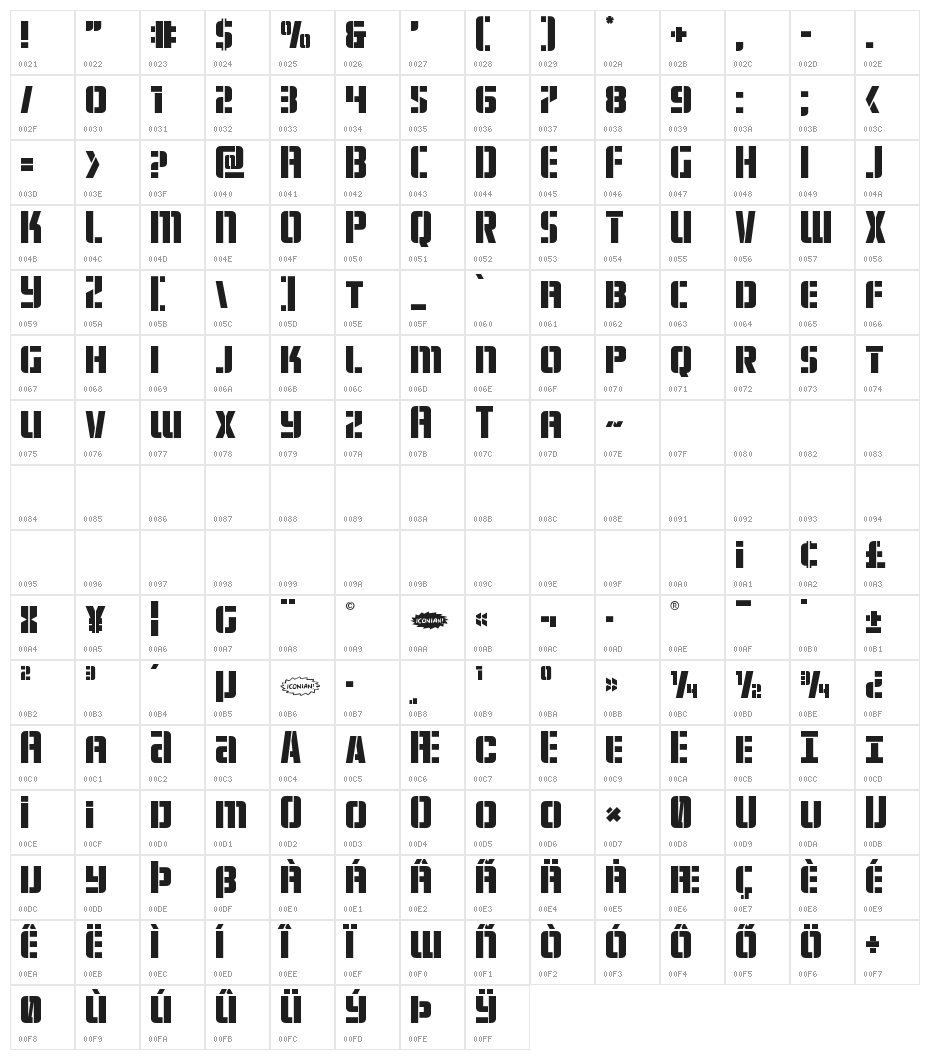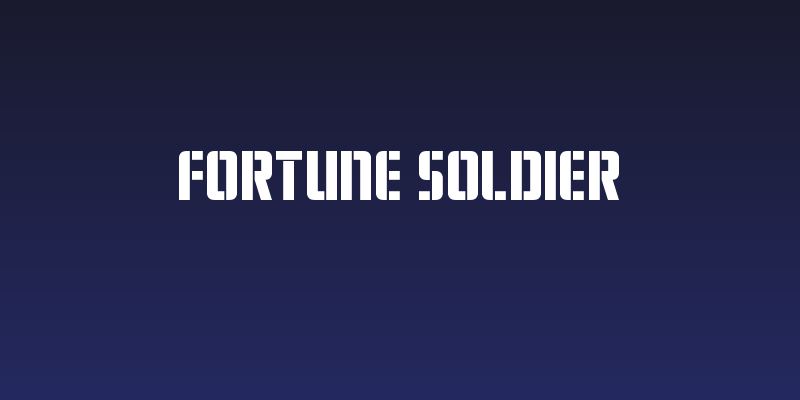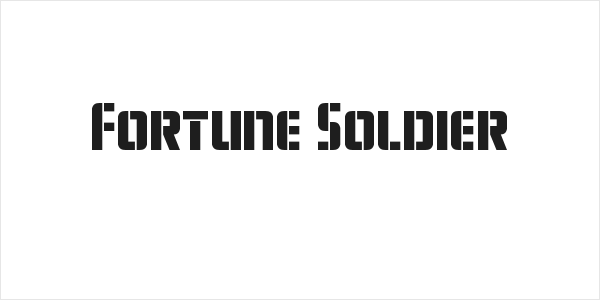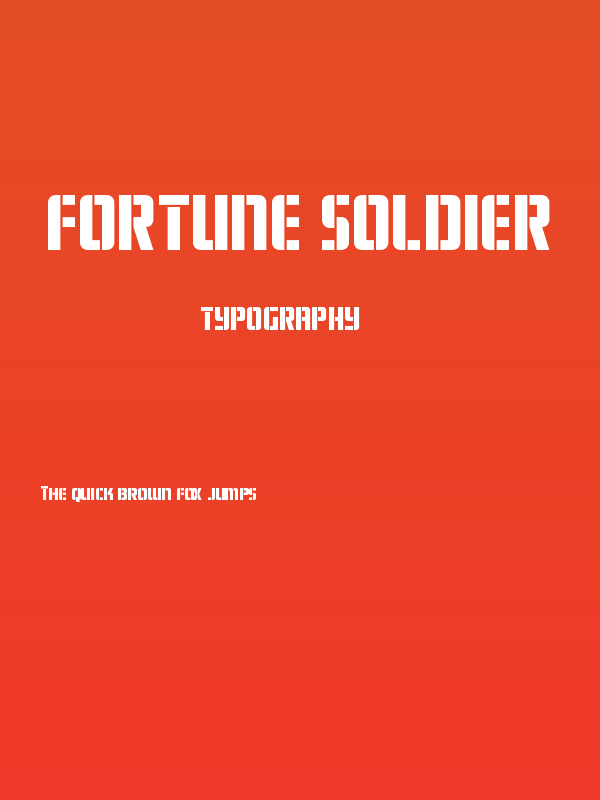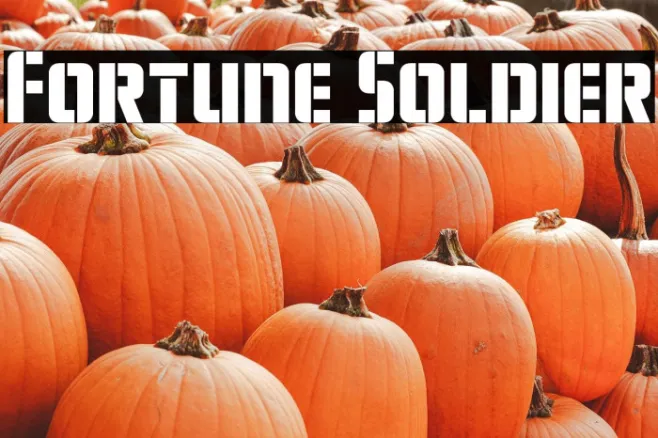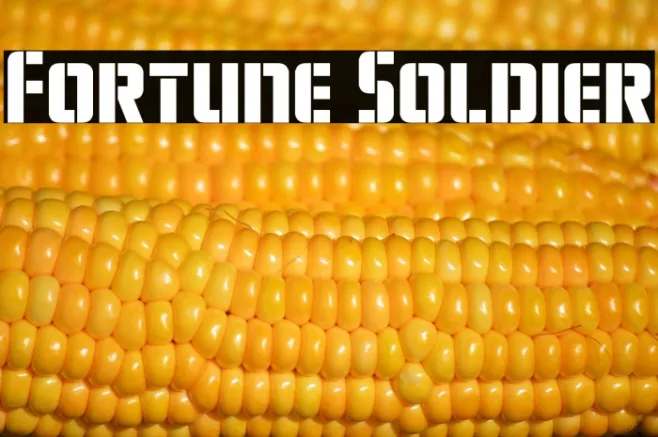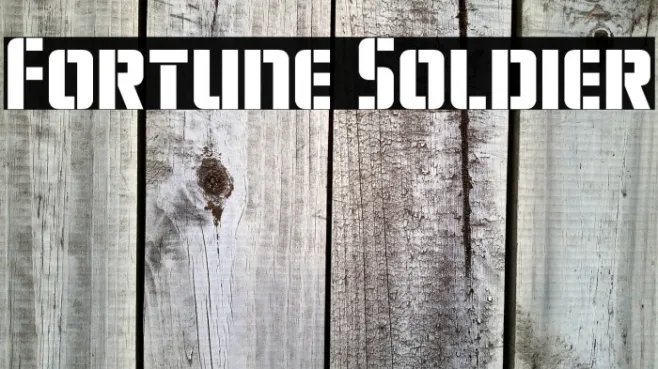
Fortune Soldier Font
Fortune Soldier Description
This font features a bold, geometric design with a strong, military-inspired aesthetic. The characters are constructed with thick, block-like shapes that convey a sense of strength and stability. The use of sharp angles and straight lines gives it a modern and assertive appearance. The uppercase letters are particularly striking, with a uniform height and width that create a cohesive and impactful look. The numbers and special characters maintain the same bold style, ensuring consistency across all elements. This font is ideal for projects that require a commanding presence and a touch of ruggedness.
| Proposed Projects | Ideal for military-themed posters, video game titles, branding for outdoor gear, and bold signage. |